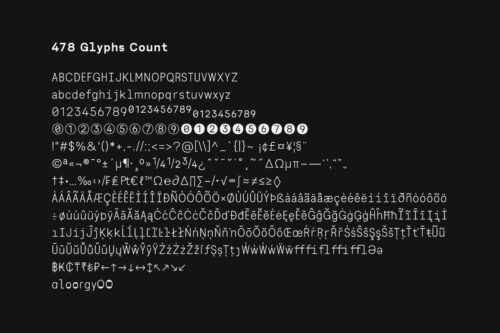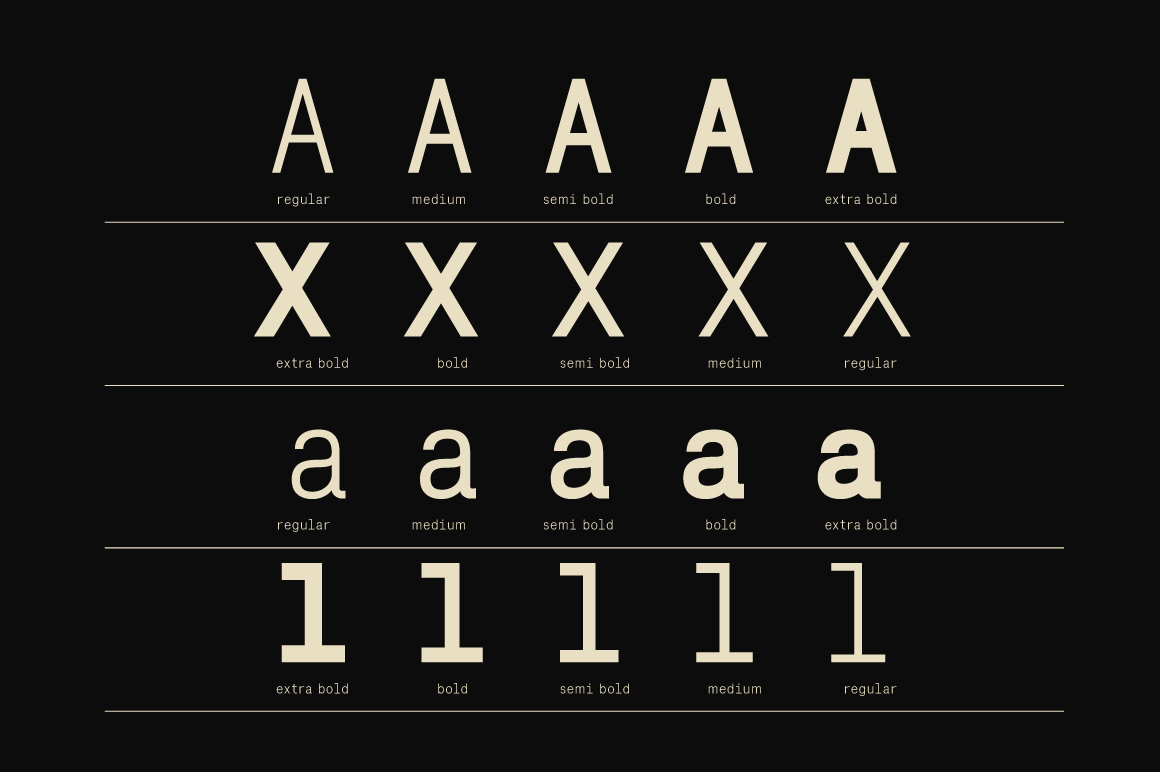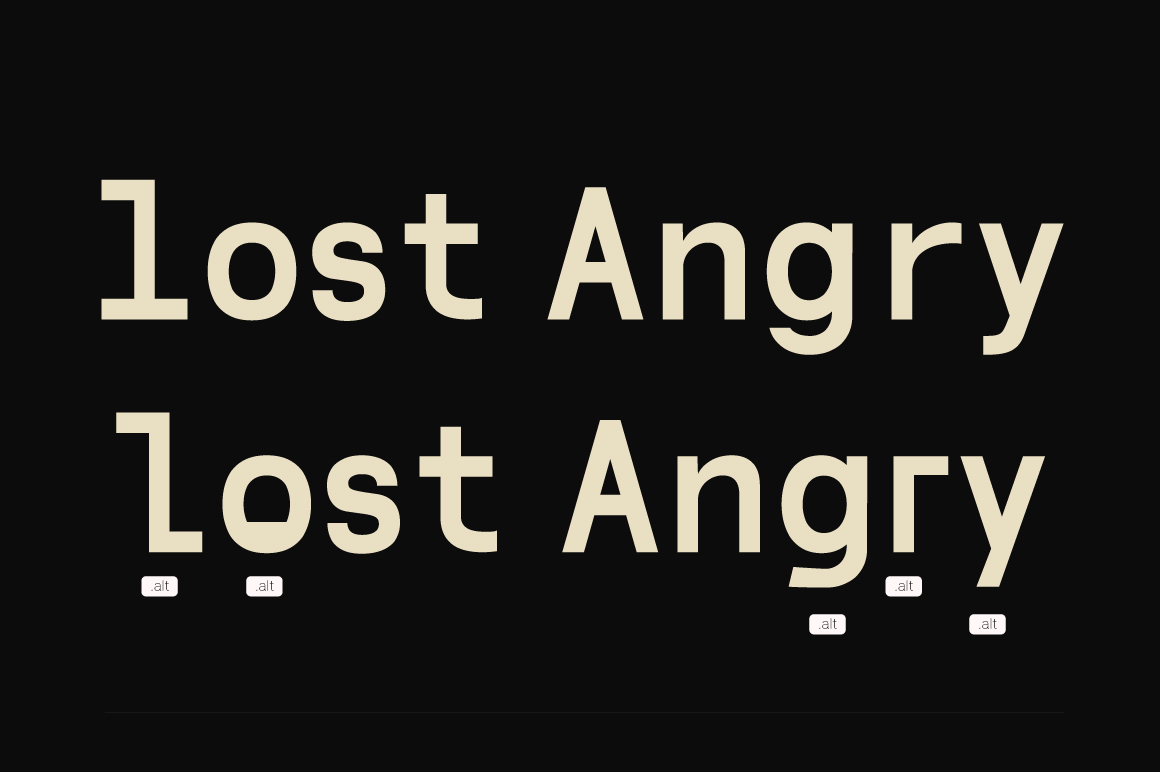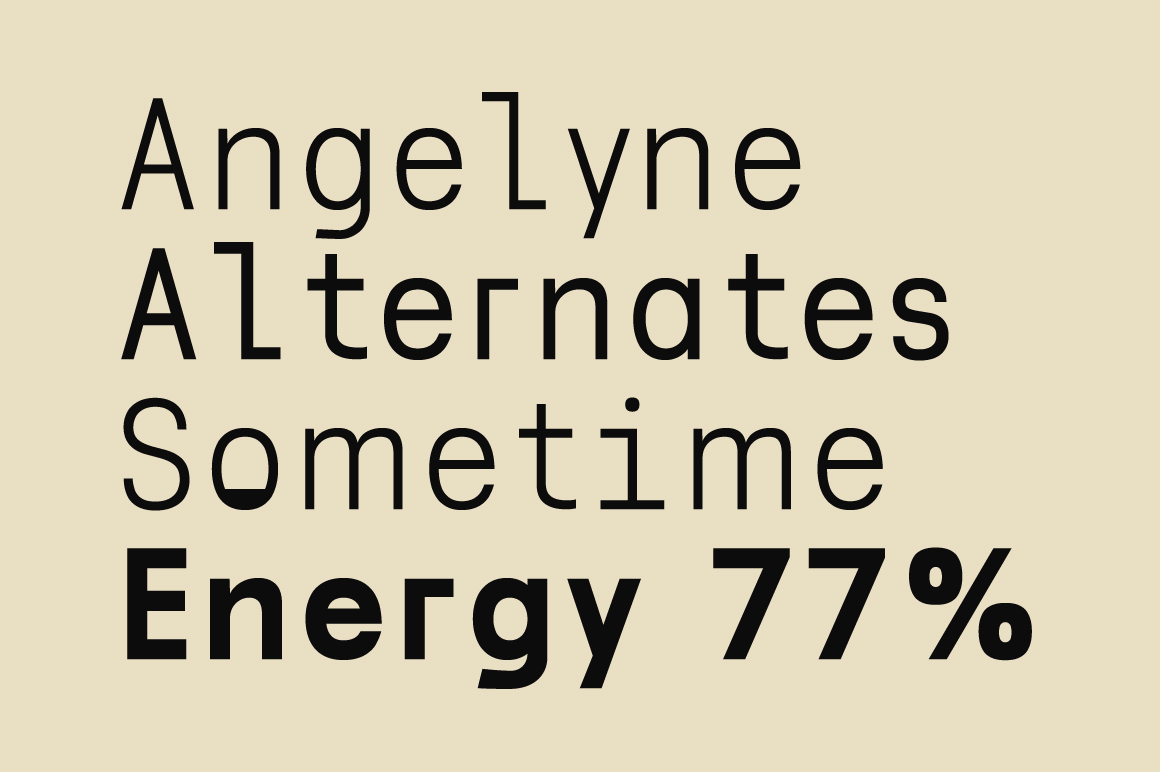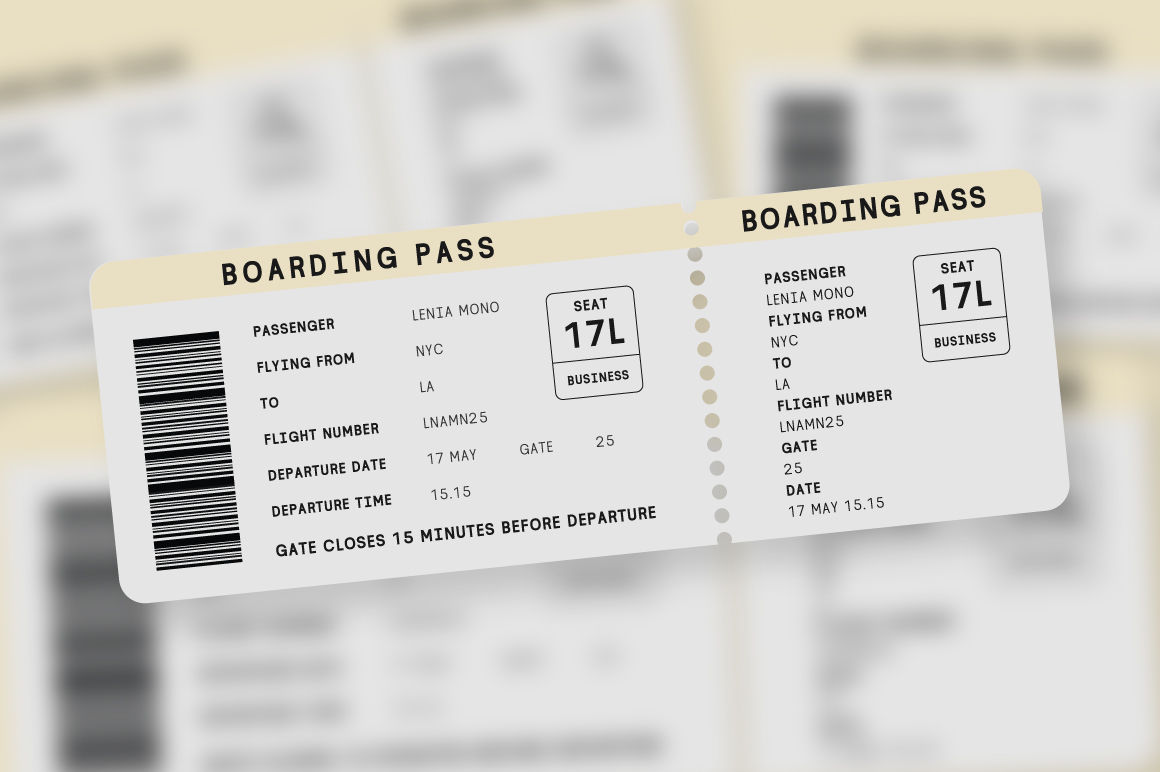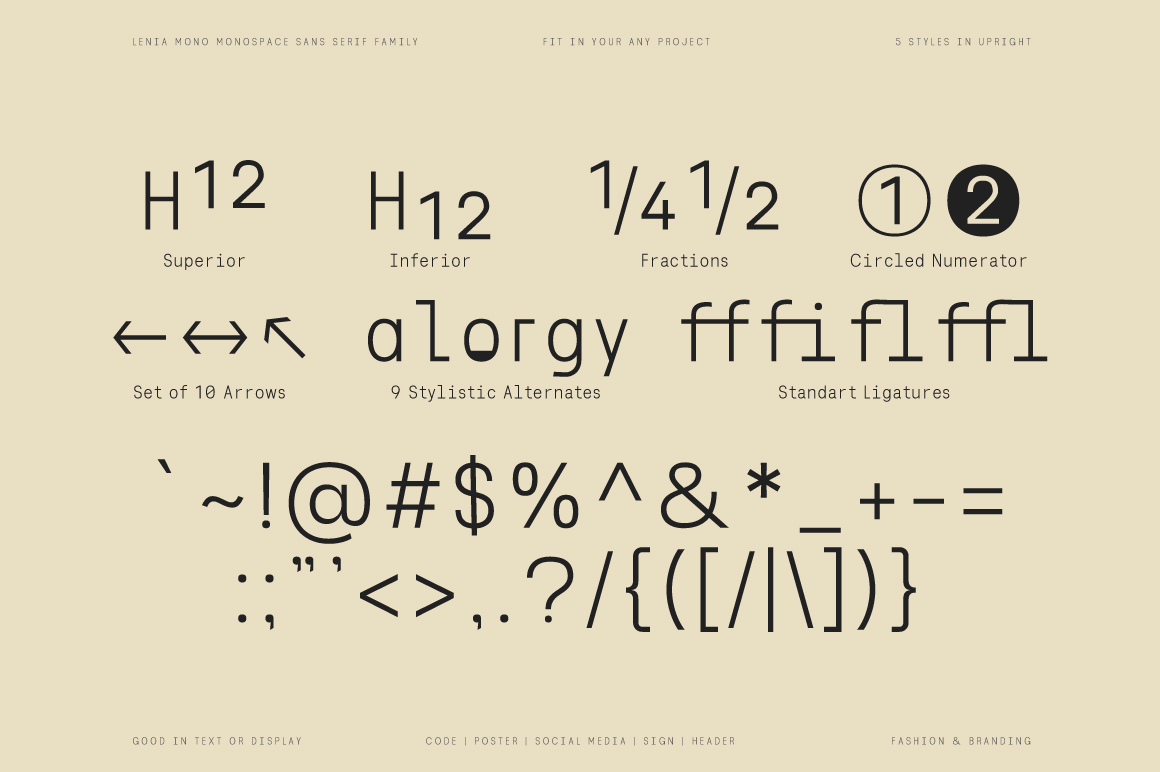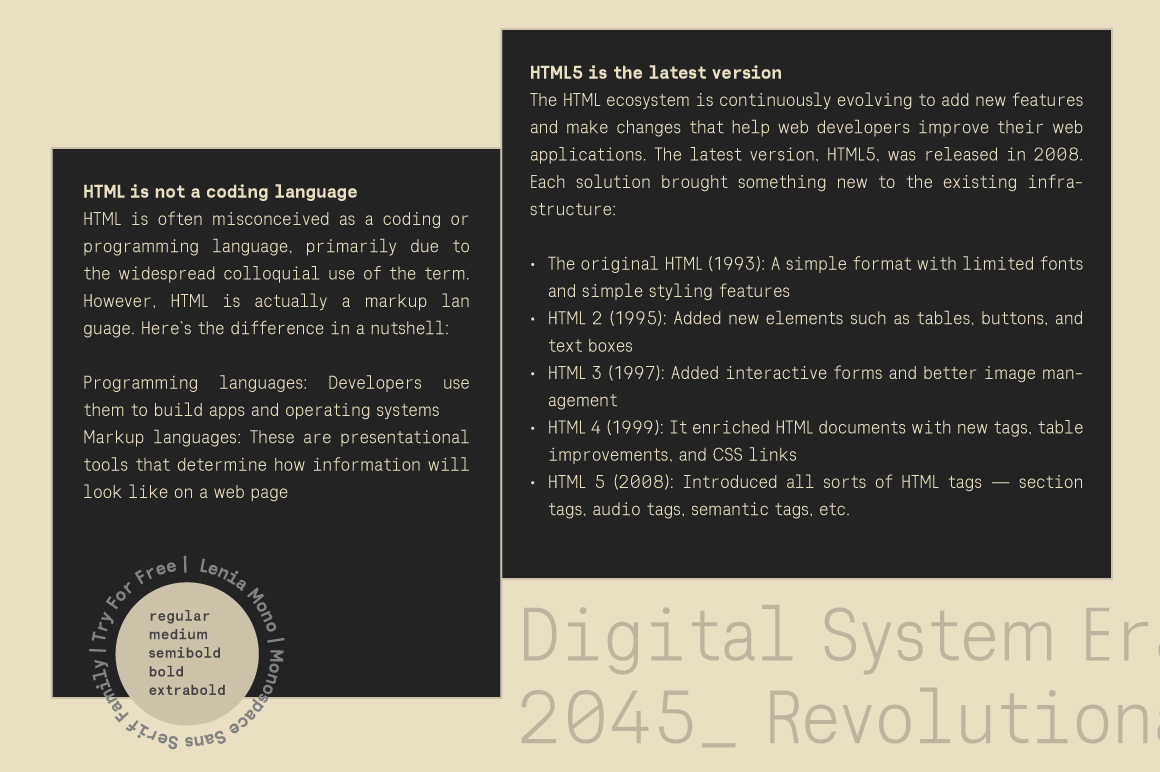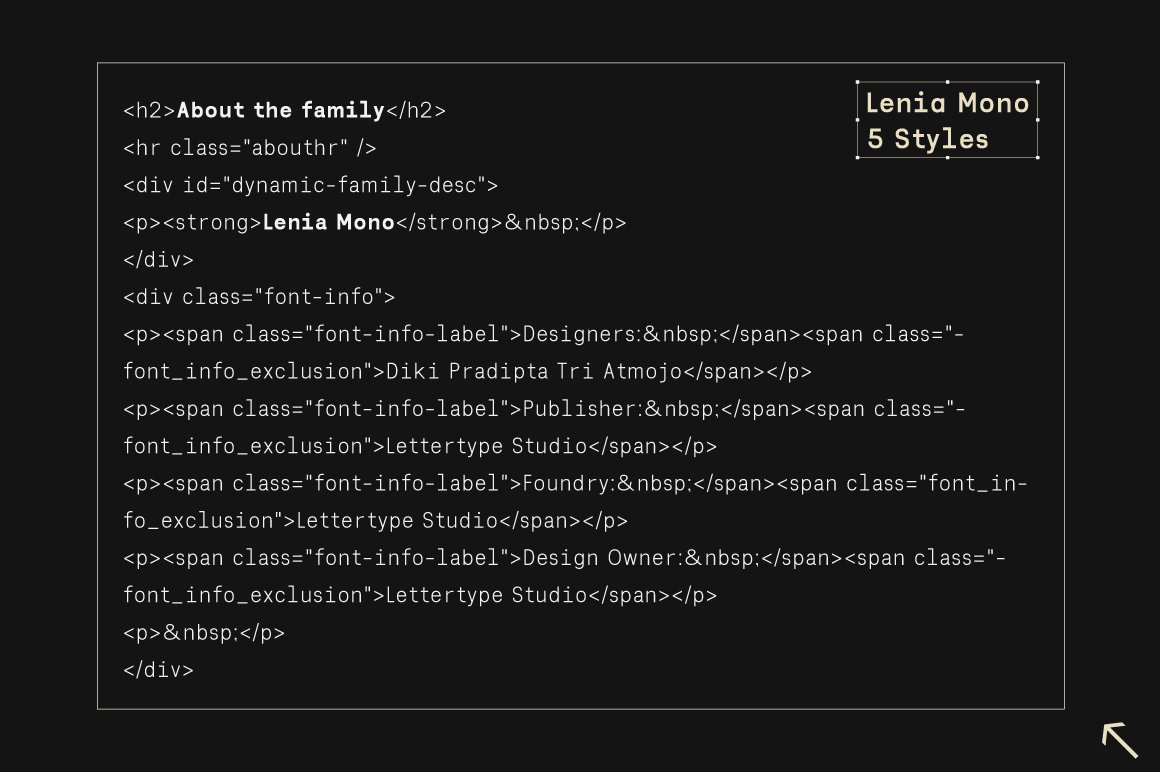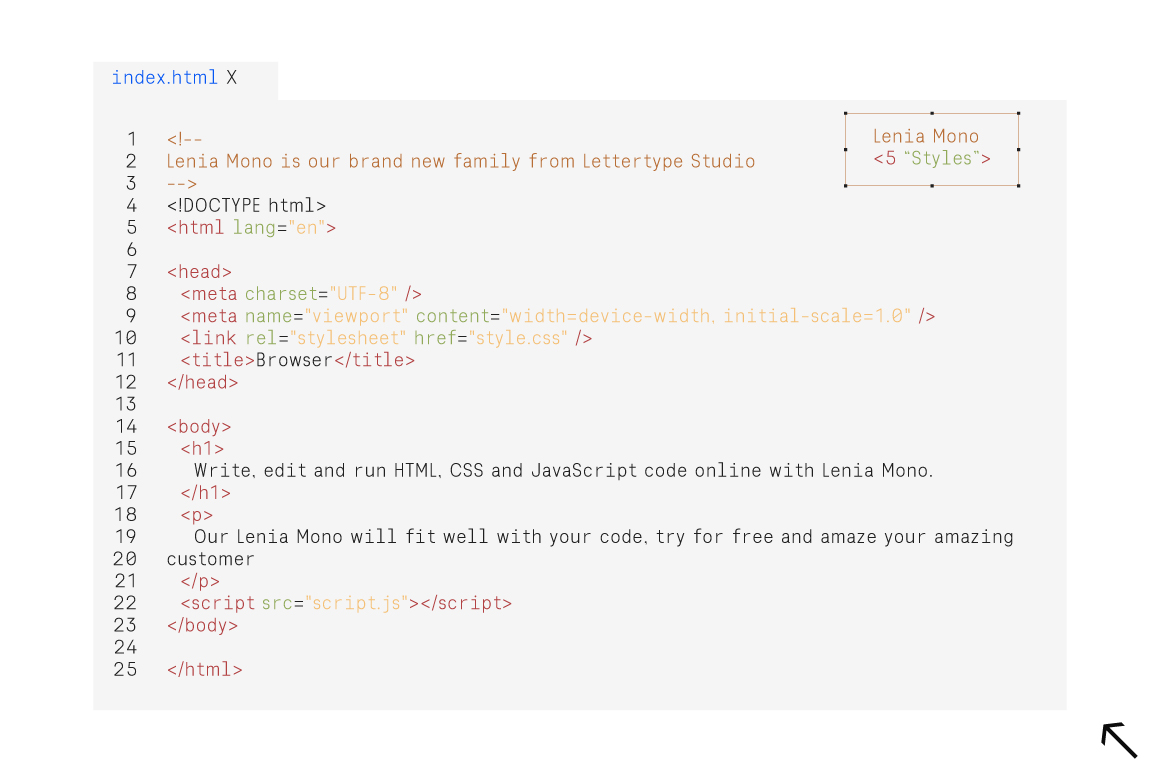
Lenia Mono
Lenia Mono is a meticulously crafted monospace sans-serif font family that harmoniously blends the precision of monospaced design with the clarity of sans-serif aesthetics. This font family offers a clean, modern appearance, making it ideal for coding environments, technical documentation, and minimalist design projects. Its uniform character spacing ensures readability and consistency across various applications, from digital interfaces to print media.
Designed with versatility, this font family supports a wide range of languages and includes weights from regular to extrabold, including 5 weight styles. OpenType features include stylistic alternates (O, a, l, o, r, g, & y), figure variations (superiors, inferiors, fractions, circled numerators, standard ligatures), arrows, and broad Latin language support to accommodate diverse design needs. Whether developing a sleek user interface, crafting detailed technical manuals, or creating contemporary branding materials, this monospace sans-serif font family provides the perfect balance of functionality and style.
Lenia Mono Features:
• 5 Styles (Regular – ExtraBold)
• Upright Style
• 500+ Glyphs Total
• 270+ Language Support
• Coding interfaces, terminals & tech documentation
• UI/UX design, dashboards & developer branding
• Modern editorial layouts & minimalist web projects
• Packaging, posters & tech-inspired visual design
• Clean typography systems for digital or print use